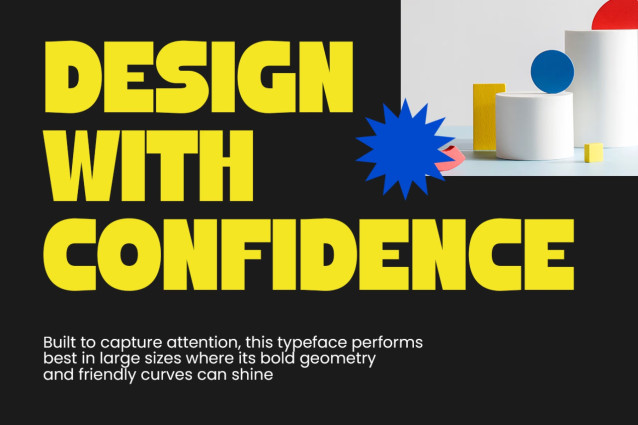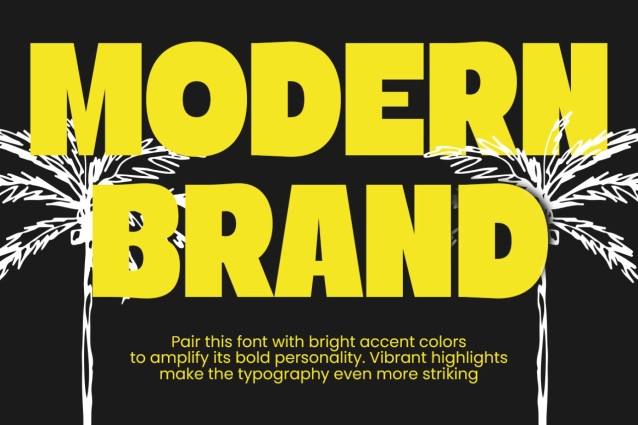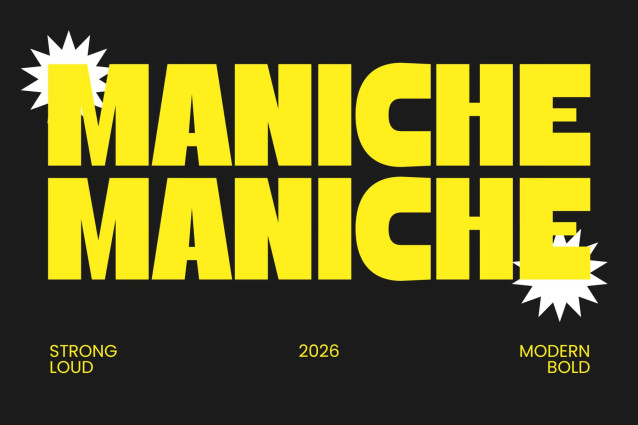
Maniche Font
Maniche is a bold retro display font with strong geometric shapes and powerful character. Perfect for posters, branding, headlines, and social media graphics.
Maniche is a strong display typeface built for modern bold typography. The letterforms feature thick strokes and balanced proportions that create a solid and confident look. At the same time, the geometric structure keeps the design clean and visually organized. Because of this combination, the font feels both retro and modern.